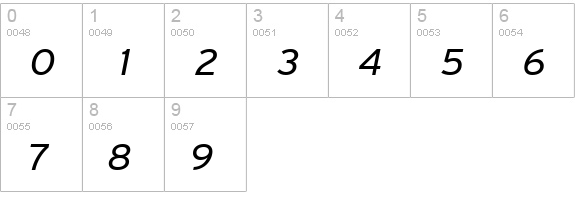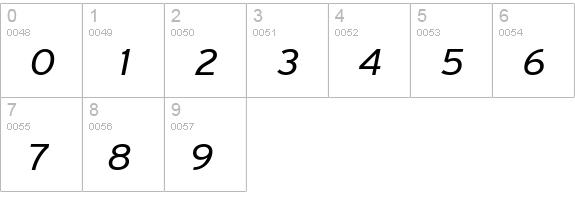
PFHighwaySansPro-Italic is a distinctive, italic variant in the PFHighwaySansPro typeface family \xE2\x80\x94 well suited to design and typography projects.
PFHighwaySansPro-Italic font is a sleek and modern typeface that exudes sophistication and style. The italicized characters add a touch of elegance to any design project, making it perfect for both professional and creative endeavors. The crisp lines and smooth curves of this font create a polished and refined look that is sure to capture attention. Best of all, PFHighwaySansPro-Italic font is available for free download at FontsMarket.com. This means that you can easily enhance your projects with this high-quality typeface without breaking the bank. Whether you're working on a website, a brochure, a poster, or any other design project, PFHighwaySansPro-Italic font is a versatile choice that will elevate your work to the next level. Don't miss out on the opportunity to add PFHighwaySansPro-Italic font to your font library for free. Download it today and see the difference it can make in your designs!